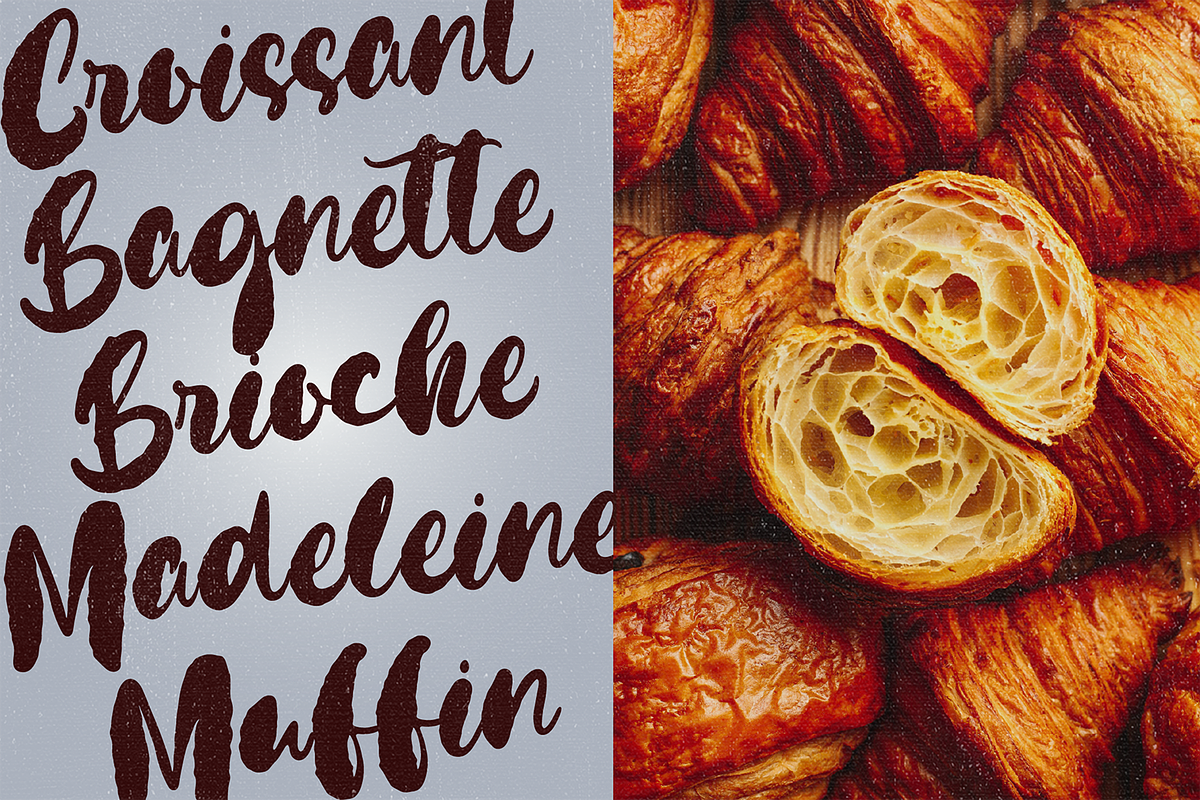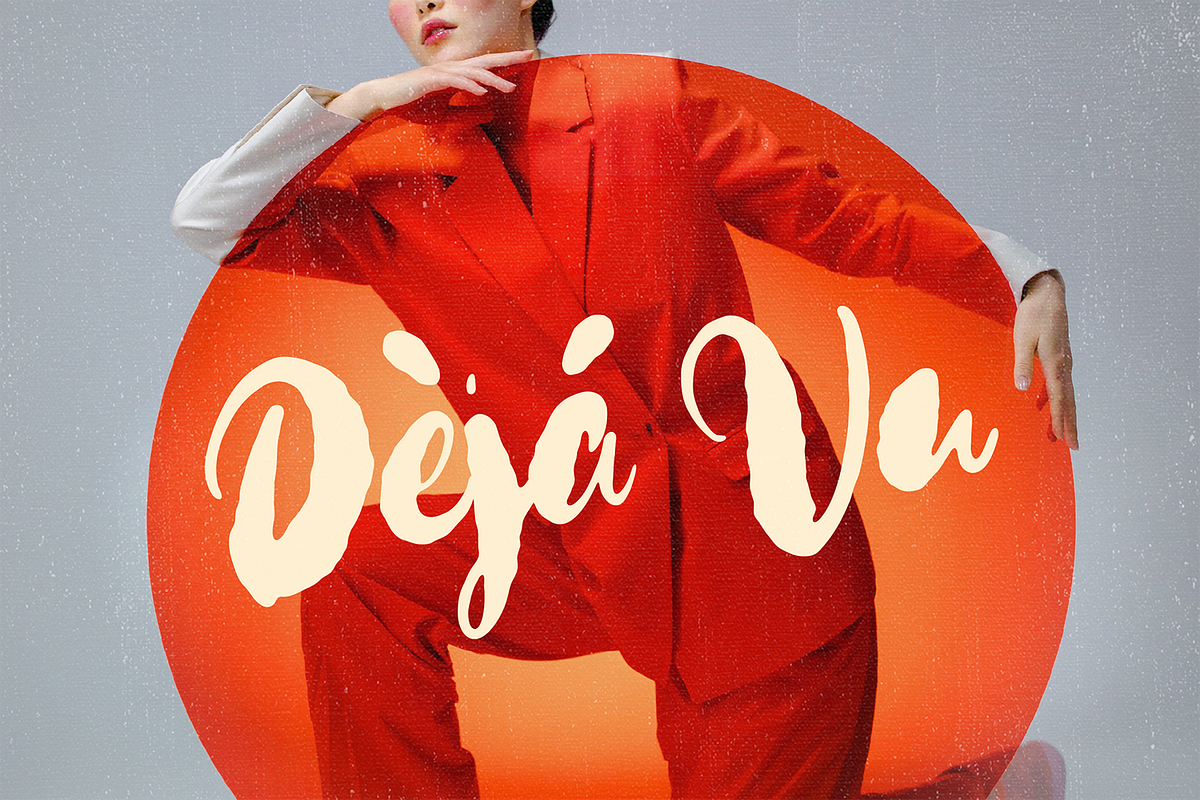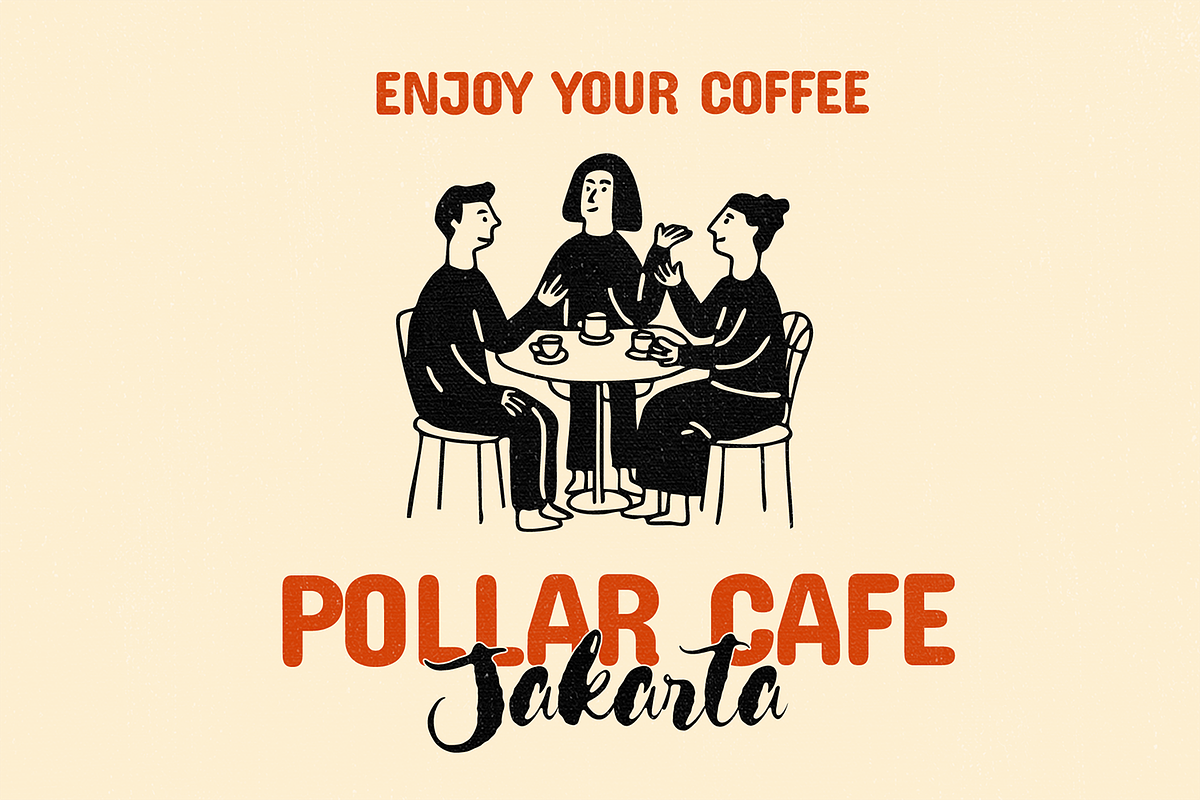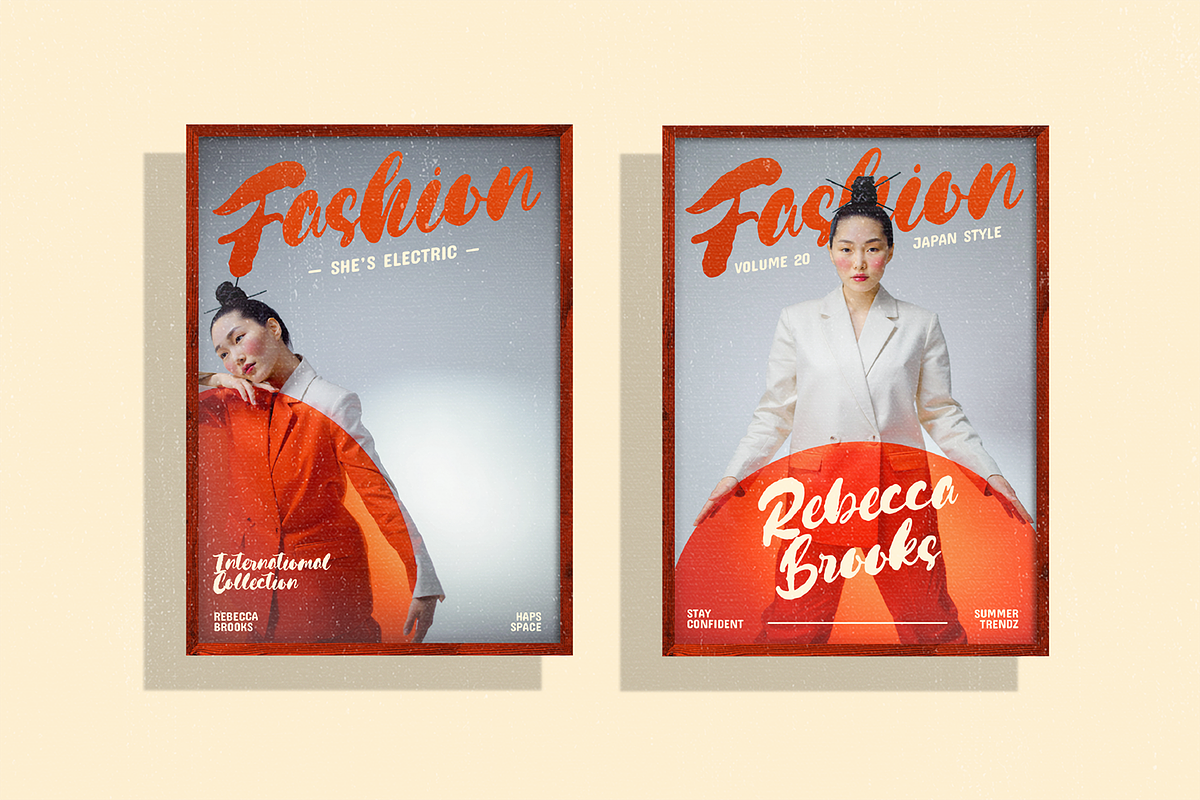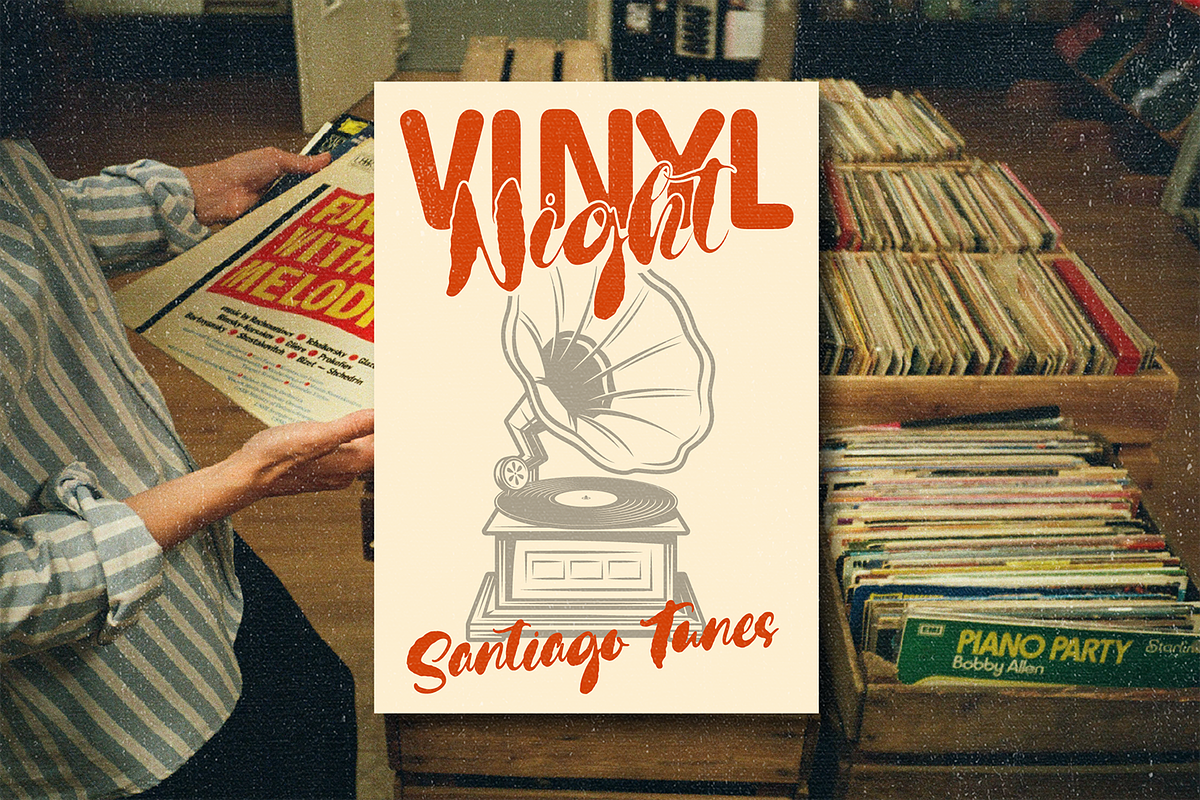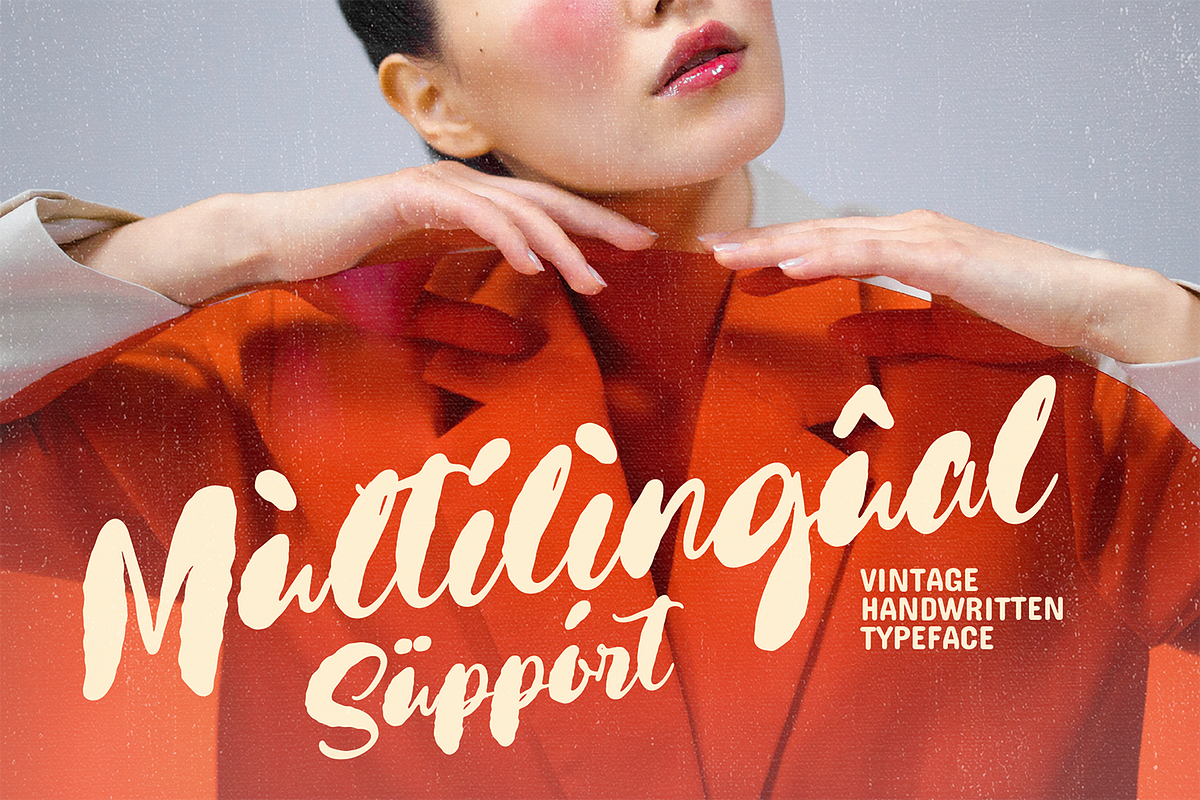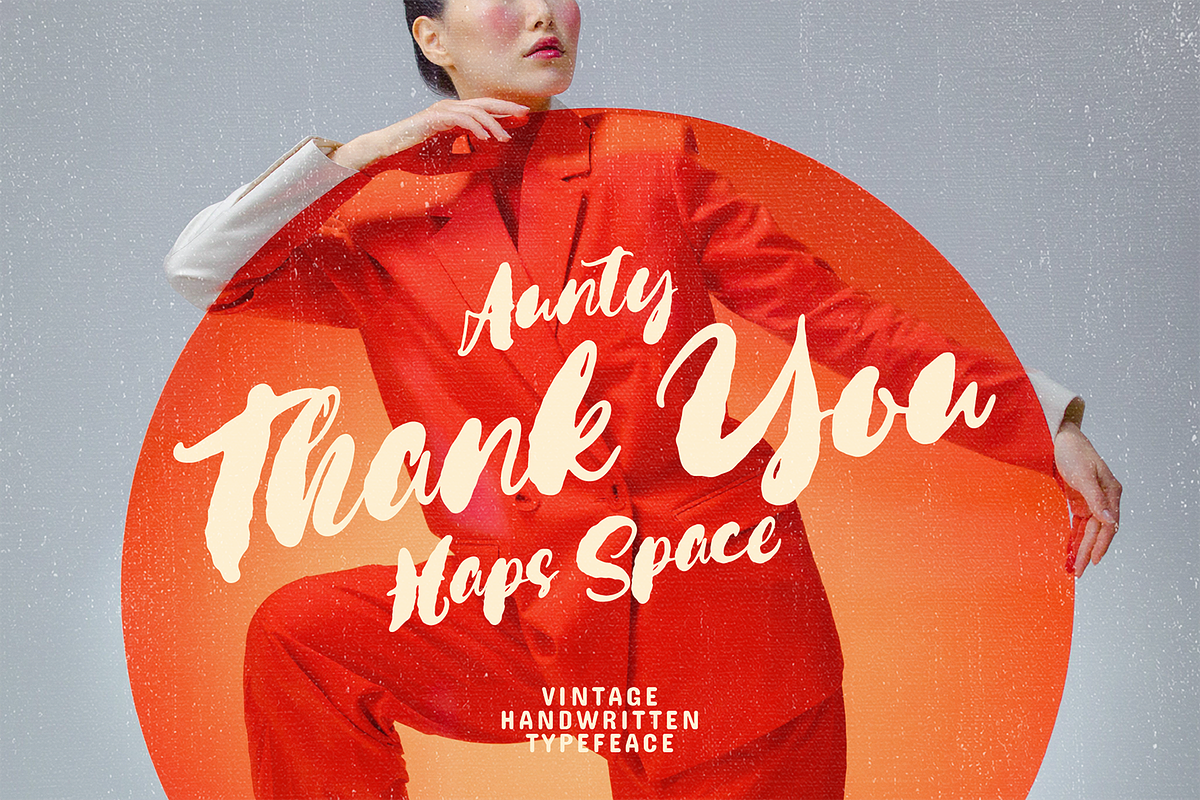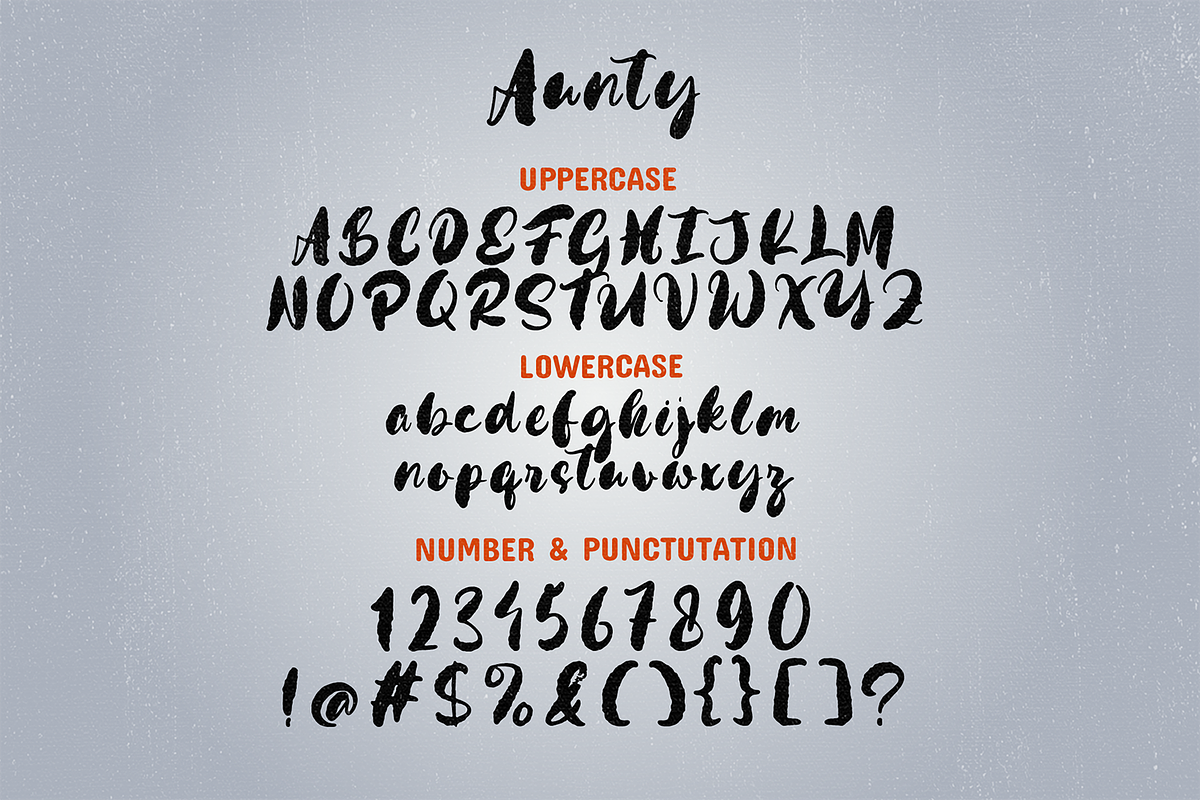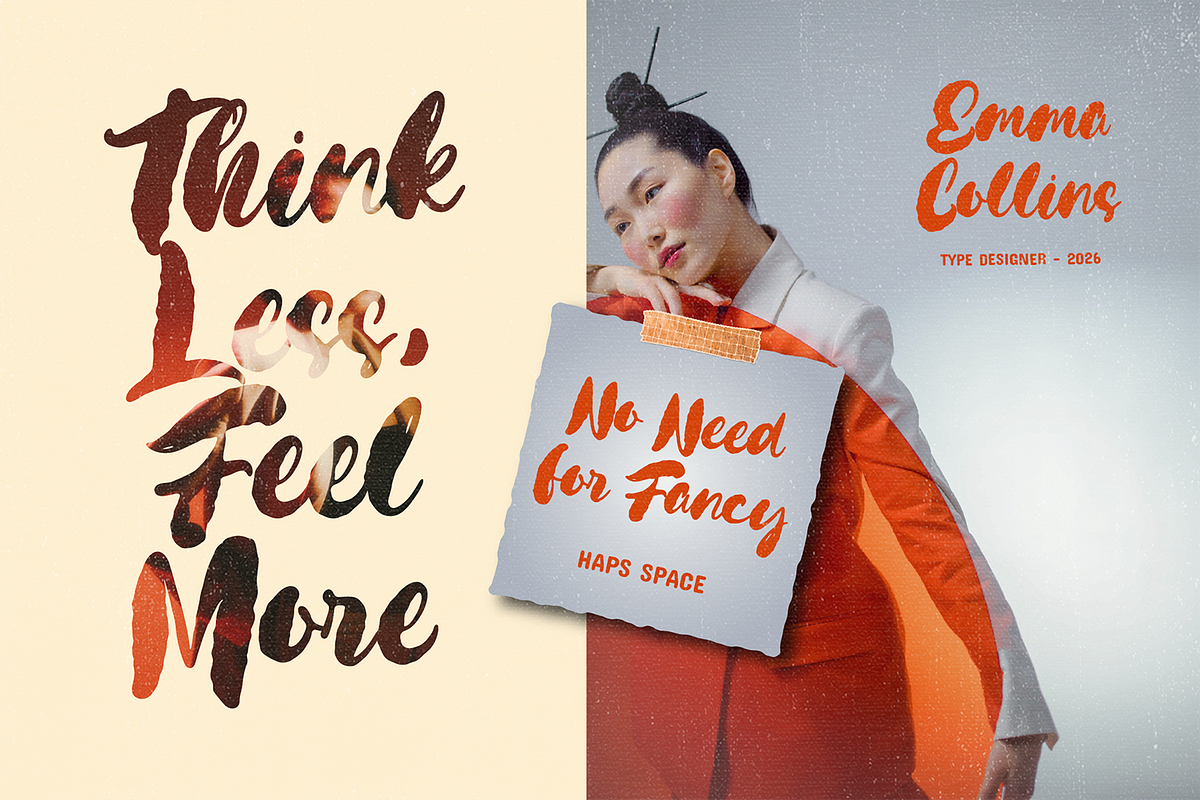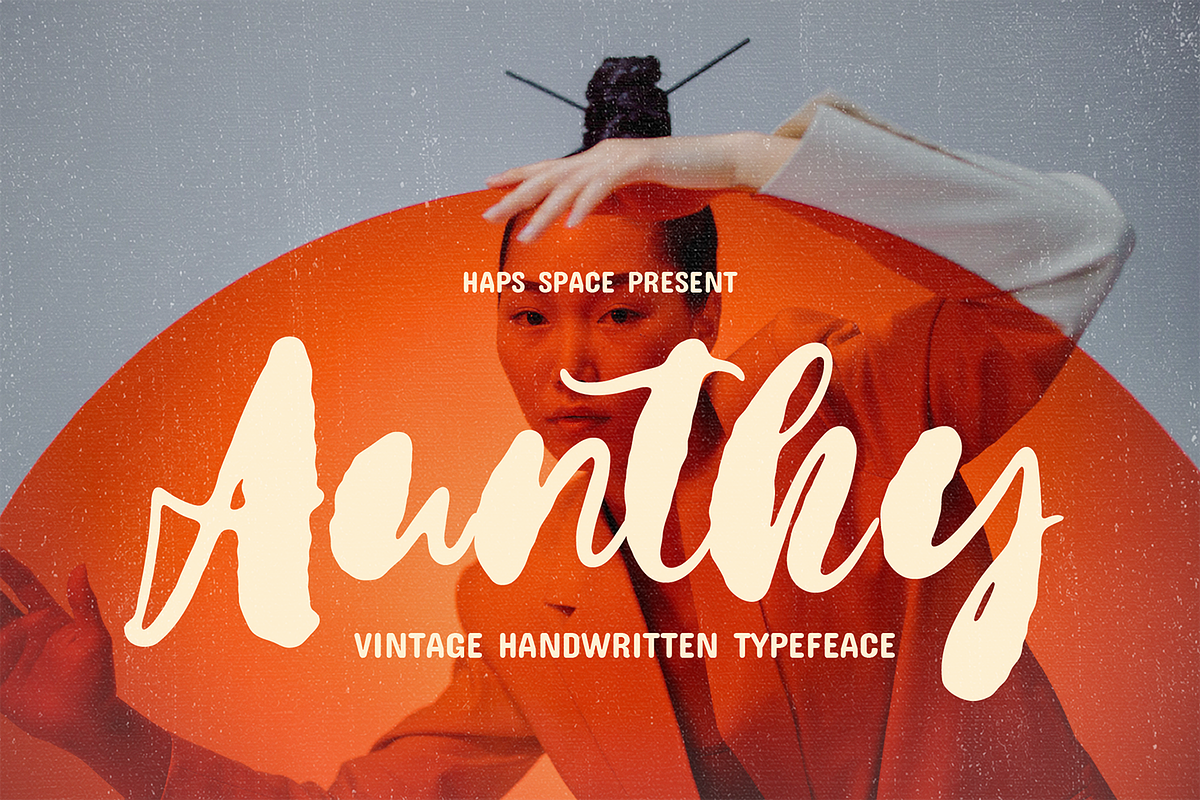
Aunthy - Vintage Handwritten
Aunthy is an authentic, expressive, and dynamic handwritten typeface crafted to deliver a bold vintage aesthetic to modern design projects. Featuring organic brush strokes, energetic curves, and handcrafted textures, Aunthy effortlessly combines retro nostalgia with high-fashion editorial flair.
Designed with fluidity and balance in mind, this typeface brings an energetic human touch to display typography, making your visual branding, headlines, and creative assets instantly memorable.
- Complete Character Set: Includes full Uppercase and Lowercase letterforms.
- Numbers & Punctuation: Full set of numerals, standard symbols, and punctuation marks.
- Stylistic Alternates & Ligatures: OpenType features designed to create natural, non-repetitive handwriting flow.
- Multilingual Support: Accentuated characters supporting multiple European and Latin-based languages.
Ideal Applications:
- Brand Identity & Logos: Perfect for craft brands, lifestyle businesses, fashion labels, and creative studios seeking a personal touch.
- Digital Media & Content: Standout typography for social media campaign.
- Product Packaging: Adds an artisan feel to cosmetics, food packaging, beverage labels.
- Editorial & Fashion Layouts: Bold headline styling for magazines, lookbook titles, and digital publications.
- Advertising & Marketing: Eye-catching display text for promotional graphics, event covers, and digital posters.